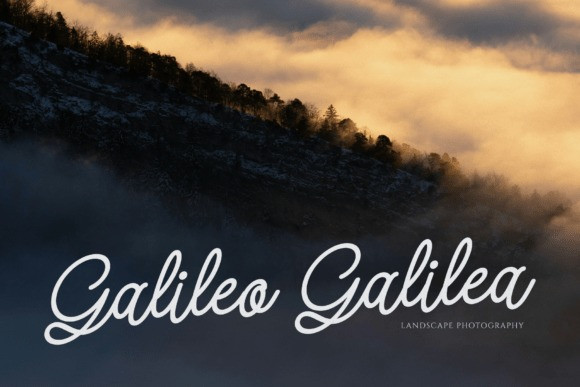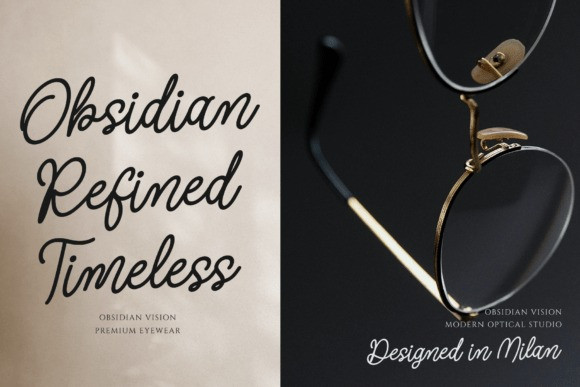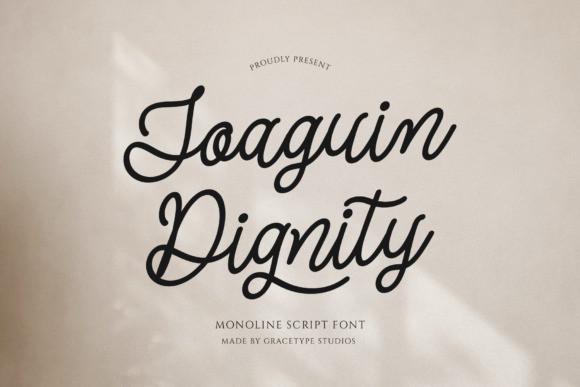
Joaguin Dignity Font
Joaguin Dignity Font a refined monoline script font. This typeface features a smooth vertical anatomy constructed with uniform medium-weight line weights and a comfortable, relaxed cursive flow. Joaquin Dignity is an exceptional match for upscale lifestyle boutique branding, cosmetic labels, custom greeting cards, and intimate editorial layout headers. It adds a powerful sense of unyielding professional grace and established artisanal beauty to your visual assets, transforming digital titles into personalized statements.